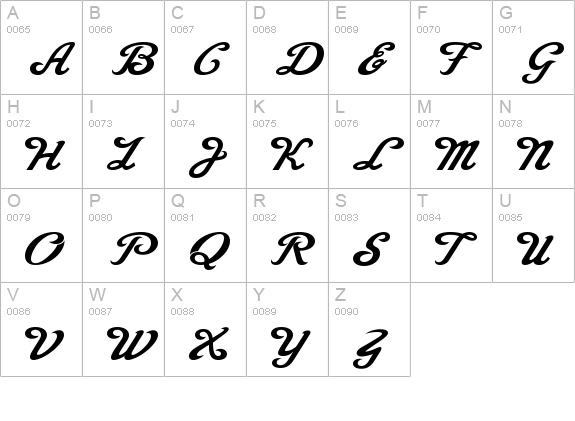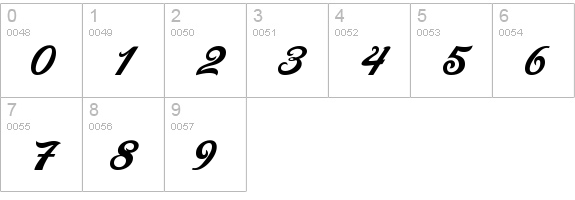
La Macchina Font Details
La Macchina font is a visually stunning typeface that seamlessly blends modernity with classic elegance. With its sleek and sophisticated design, this font is perfect for adding a touch of style and refinement to any project. Featuring clean lines and well-defined curves, La Macchina exudes a sense of professionalism and finesse. Its versatile nature allows it to be used in a wide range of applications, from print materials to digital designs. Whether you're creating logos, headlines, or body text, this font will elevate your work to new heights. What makes La Macchina font even more remarkable is that it is available for free download at FontsMarket.com. This means that designers and creatives alike can access this exceptional typeface without any cost, making it a valuable asset for any project, big or small. With its extensive character set and multiple weights, La Macchina offers endless possibilities for customization and experimentation. Its legibility and readability ensure that your message will be conveyed with clarity and impact, while its unique design elements add a touch of personality and flair. Whether you're a seasoned designer looking to enhance your portfolio or a beginner exploring the world of typography, La Macchina font is a must-have in your collection. Its combination of elegance, versatility, and affordability makes it a standout choice for any design project. So don't miss out on the opportunity to download this exceptional font for free at FontsMarket.com and take your designs to the next level.